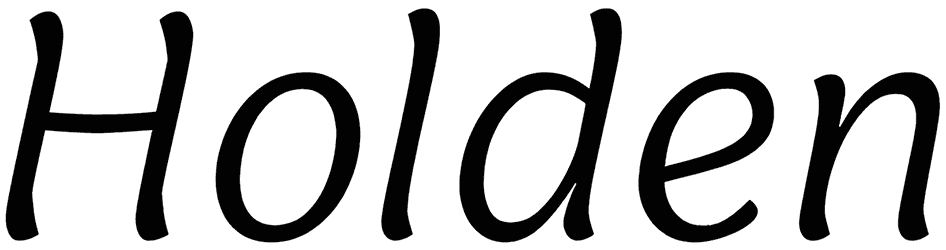
Holden Font
Holden is a script font that you may use to give your digital projects a unique flair and assist you in reaching your professional objectives. Your presentation will have a touch of traditional mood with this sans serif font.
Its three different styles will make up for the lack of numbers and make it perfect for everything from posters and logos to album covers. With a little risk, you may wave goodbye to tedious processes and give it a go without worrying.
Holden is a typeface family designed in 2018 for Zetafonts by Cosimo Lorenzo Pancini with Andrea Tartarelli as a research in texture and extreme weight range. Its curvy shapes, inspired by pointed brush aesthetics, are developed in six different weights, from the lightly contrasted thin to the fluid and rhythmic fat.The lightest weights are mostly designed for text usage, while the heavier weights work better at display sizes, where the extreme shapes and tight counter-spaces are better appreciated.
Holden aims to fill the space between display and text typeface, with a range of variants that allows maximum expression in display use and great legibility in long texts, on the web and at small size. Holden is designed for editorial or packaging use where a contrasting range of weights and variants is required to fight monotony while keeping branding consistent.
All Holden fonts include full open type features with stylistic alternates, small caps, discretionary ligatures, positional number forms, swash forms (in italics) and full language coverage for +70 languages using latin alphabet.
An array of extra decorative dingbats are included to complement your design with pointing manicules and fleurons (also called “horticultural dingbats” by Robert Bringhurst in The Elements of Typographic Style).